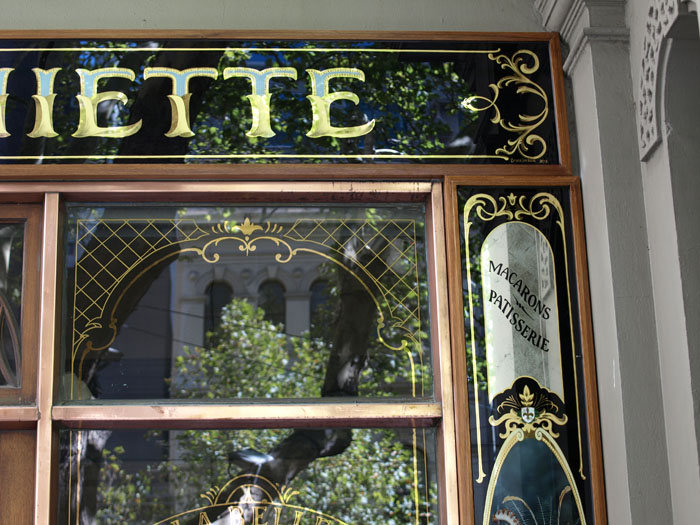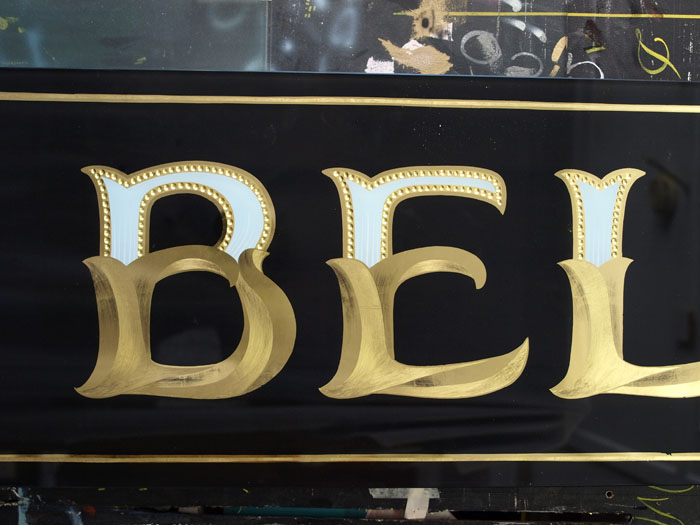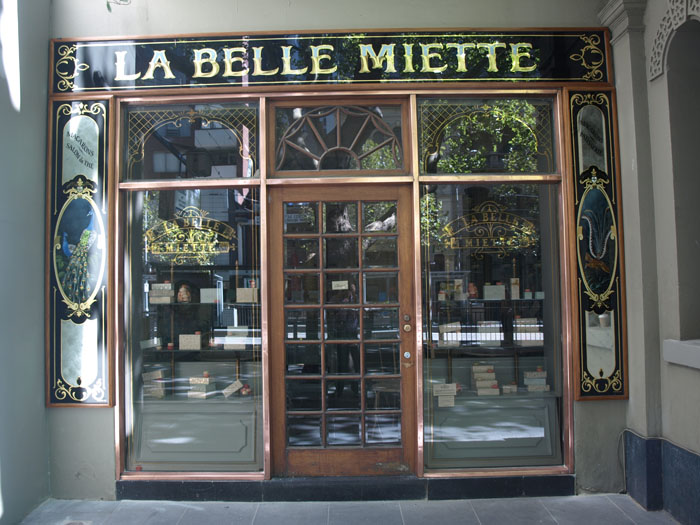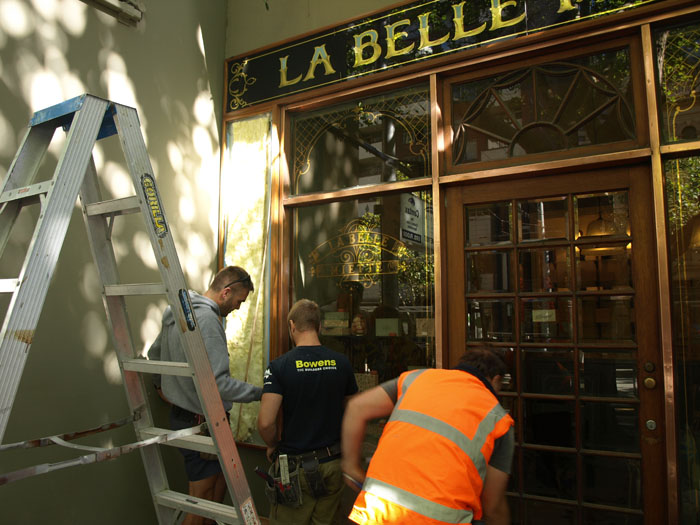
La Belle Miette
Hi gang. I posted some photos on facebook of a recent job for a macaron shop in Melbourne (Collins street) done in classic Parisian style. Rod asked for some close-ups, so here is a selection of photos. Everything is hand-painted. No masks, vinyl or tape. The pictures also include mica powders and gold leaf backing so they reflect with a bit of metallic appearance. Personally, I think it's the prettiest shop in the city...but then I am biased.
OK...you want descriptions, don't you???....the dots in the lettering are done using clear epoxy (like envirotex). It sits up nice and high giving a better dome shape than single part materials. The gilding in the lower half of the letters has also been rubbed back to give is a more 3D appearance. The mirror areas are 12 carat white gold, laid in a diamond pattern and lightly rubbed back to accentuate the pattern in the leaf. The rest is technically pretty standard, with a little bit of abalone to add a nice detail.... I've taken some video using my phone which I plan to cobble it together when I find some nice (free) non-linear editing software that will read the files....Here also some extra photos including a couple of other recent mirror panels
- The finished panels in my shop
- The guys installing. The glass is mounted with some space behind it, so it doesn't touch the wall. Note the insulation to help stops condensation.
- Some work I exhibited in a group exhibition of local artists late last year
- The diamond pattern. You can see the similarity to the mirror sections in the LBM side panels.
Stunning. Beautiful.
Meticulously crafted, wonderful pictorials.
Diamond layed leaf, I'm guessing in the verre e'glomise style?
One of a kind, Master work.
Exquisite Bruce!
Simply outstanding!
Love those letters!
Bias?....more like Right!
Inspired... I'm sure it will be highly photograph by many causal viewers who can not fathom the amount of craftsmanship that went into it's creation.
You should be very bias and with good reason.
Superb work, as always.
A beautifull shop indeed.
Looks pretty authentic Bruce.
The pictures are painted in reverse?
Wow, very nice indeed Bruce. Yep, you have very good reason to be biased. Few could do this imo.
I have a quick question on the brightline with the dots. You mentioned everything was hand painted so that includes the brightline as well? I am thinking it would be very hard, if not impossible, to screen that brightline with the 3 dim dots in the letters. Was the epoxy a 5 min setup, two part epoxy?
Got my wheels turning. Beautiful technique, fabulous execution and gorgeous results. Makes me want to book a flight across the pond just to see it in person.
Outstanding work Bruce. I'm not sure how you handled the pictorials but a few years ago whilst wandering around London with Smitty I had a chance to have a close look at a few Paris pieces from around 100 yrs or so ago. The pictorials were done on canvas and stuck on from the back.
Erik, yep...everything painted in reverse on the glass. For paintings, I started with laying down some highlights in mica powder. Next stage is painting the foreground elements and forming the shapes. Follow on with additional layers, more mica powder work, working back towards the black background. In the areas where I want it to really pop, such as the green peacock feathers, I use transparent and translucent colors with a gold leaf background....The reflective effect doesn't really show in the photos.
I bet there was a degree of "friendly" competition over which skill was the more worthy.
Really nice work Bruce! Love the twist treatment in the lower half of the letters!
Really great work Bruce! Love all that ornamentation in the window borders too. Got any photos of the window lettering to the right and left of the door?